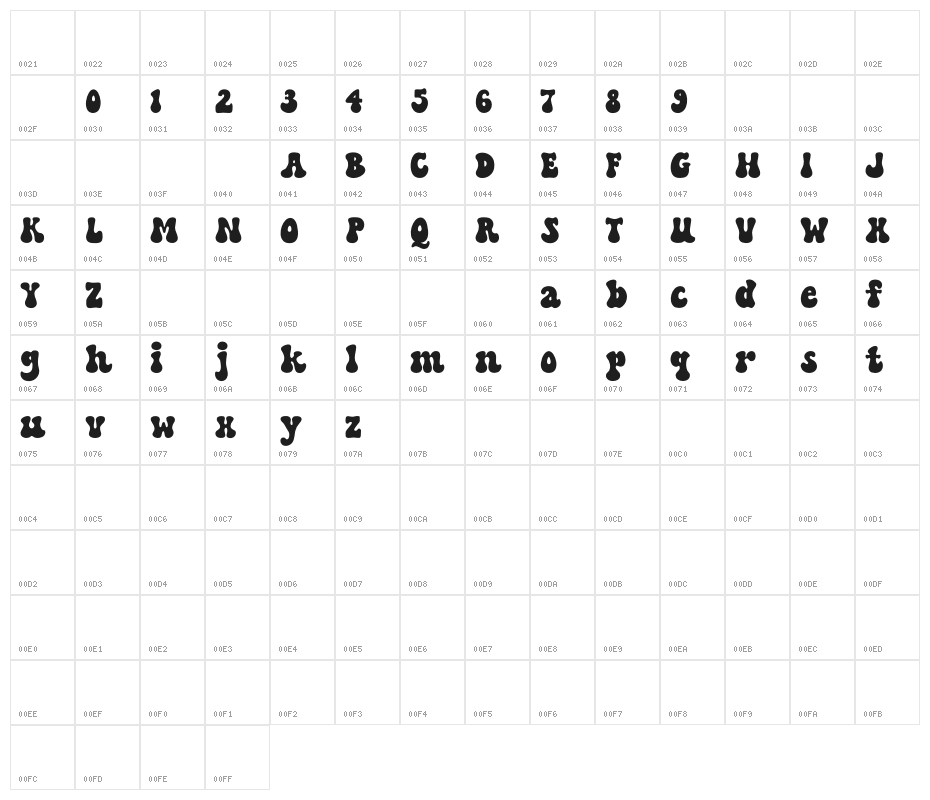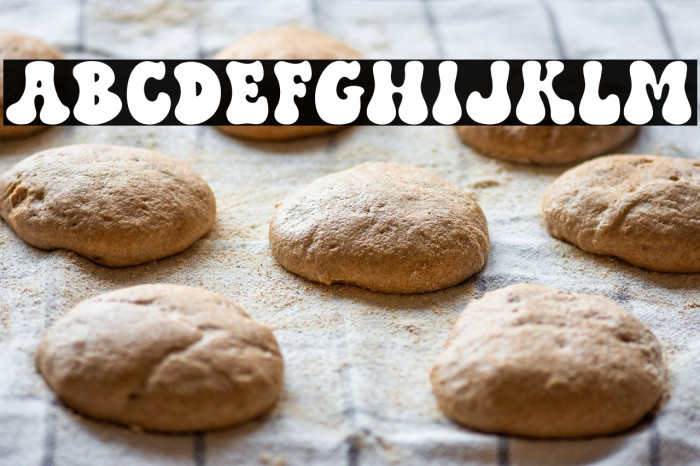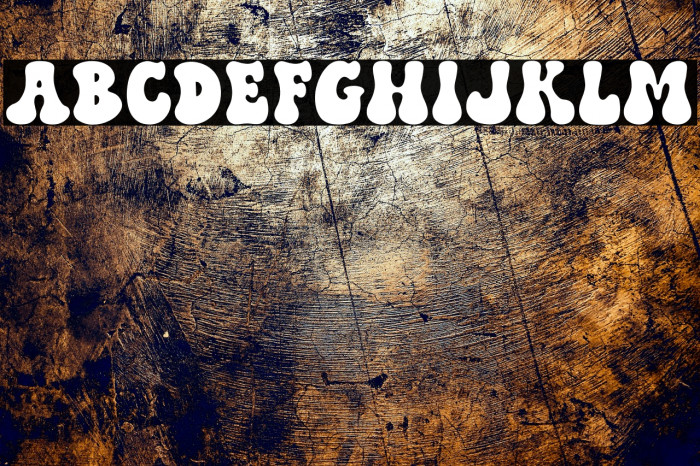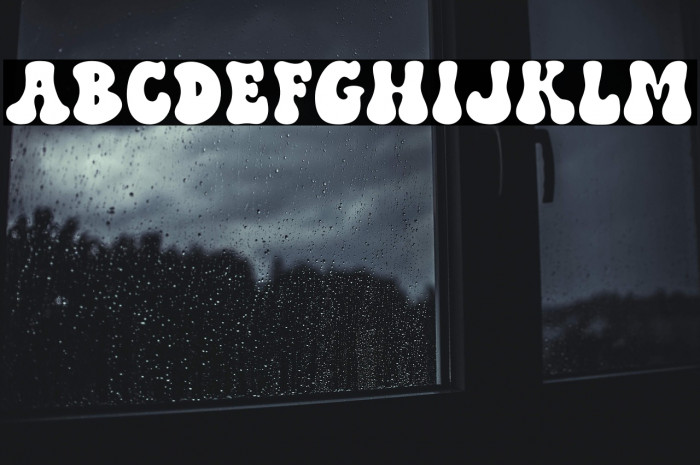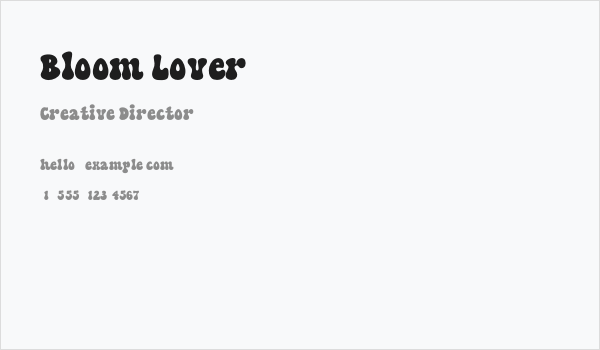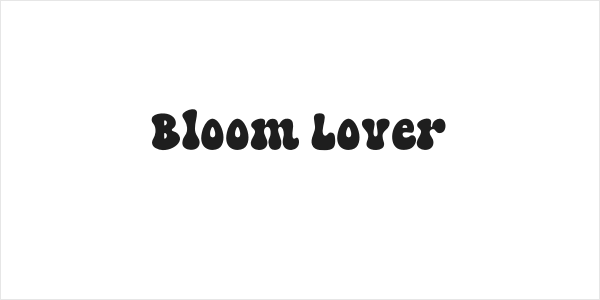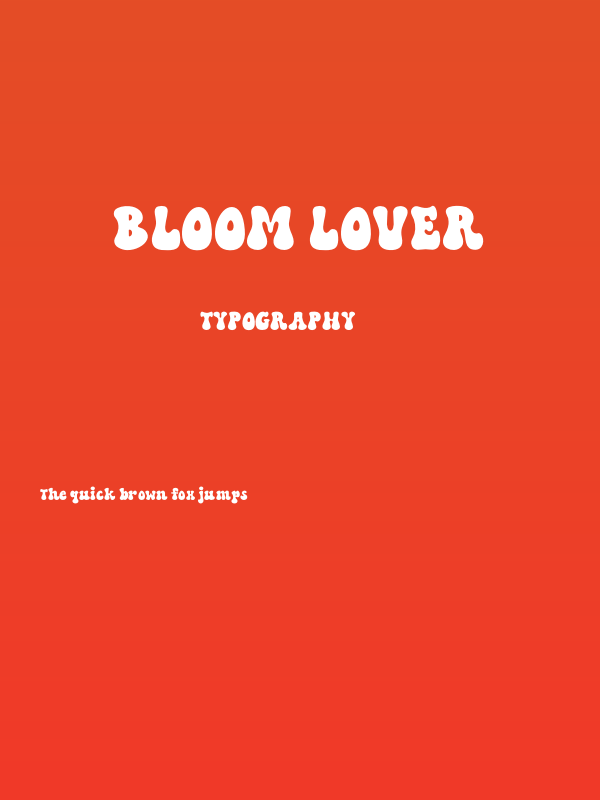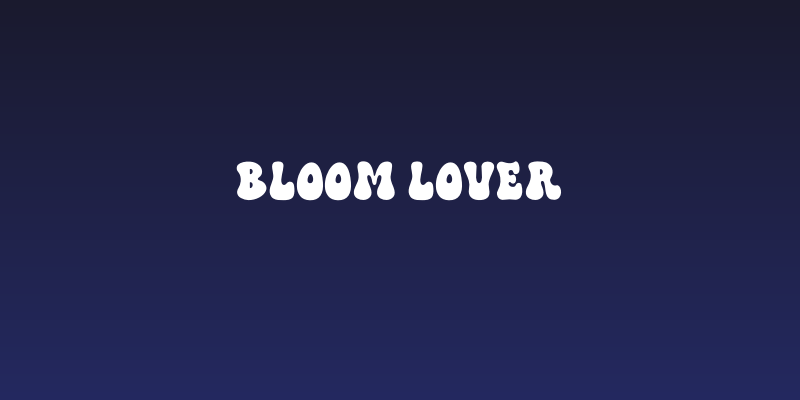
Bloom Lover Font
Bloom Lover Description
This font features a bold and playful design with rounded, bulbous shapes that give it a whimsical and fun appearance. The characters are thick and have a consistent weight throughout, creating a strong visual impact. The rounded edges and exaggerated curves contribute to its friendly and approachable feel. This style is reminiscent of retro or psychedelic designs, making it suitable for projects that aim to capture a vintage or nostalgic vibe. The font maintains a consistent width across all characters, ensuring uniformity and balance in text compositions.
| Overall Style | Retro, Playful |
| Proposed Projects | Ideal for posters, children's books, playful branding, and retro-themed designs. |